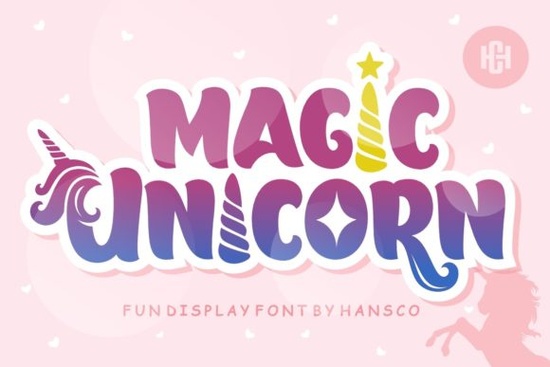
If you're looking for a friendly, hand-drawn display font that feels joyful and approachable especially for kids’ projects, classroom materials, or playful branding the Magic Unicorn Font is a thoughtful choice. It’s not overly stylized or cartoonish, but it carries warmth and character in every letter. You’ll notice subtle bounce in the ascenders, soft curves, and gentle irregularities that make it feel handmade not digital. That authenticity helps it stand out on printed worksheets, birthday banners, or SVG cut files for crafters.
When does Magic Unicorn Font work best?
This font shines where personality matters more than precision. Think: preschool activity sheets, summer camp flyers, sticker designs for teachers, or custom name tags for daycare centers. It’s also popular among print-on-demand sellers creating themed nursery art or baby shower invites especially when paired with soft pastels or glitter textures. Because it’s a display font (not intended for long paragraphs), it’s most effective at sizes 24pt and up. For body text, pair it with a clean sans-serif like Poppins or Nunito to keep things legible and balanced.
Designers often reach for Magic Unicorn when they want something cheerful but not cutesy something that feels inclusive and light without leaning into tired “kiddie” tropes. It avoids exaggerated swirls or heavy outlines, which makes it easier to layer, cut, or embroider. If you’ve ever struggled to find a kid-friendly font that still feels intentional and well-crafted, this one bridges that gap quietly.
How does it compare to other playful display fonts?
Magic Unicorn sits comfortably between bolder options like Retro Rush (which leans vintage and energetic) and softer choices like Juicy Lemon (more rounded and bubbly). It’s less formal than Fishtail Monogram, which works beautifully for elegant initials but doesn’t suit playful contexts as naturally.
Unlike many trend-driven fonts, Magic Unicorn holds up across mediums: it cuts cleanly on Cricut and Silhouette machines, renders crisply in PDFs, and scales well for both digital and physical use. Crafters report fewer alignment hiccups when layering it with shadow effects or watercolor overlays likely because its spacing is generous and its baseline is stable.
Who uses Magic Unicorn Font and why?
- Teachers and homeschoolers use it for spelling lists, reward certificates, and interactive flashcards it keeps young readers engaged without visual fatigue.
- Crafters and SVG designers appreciate its clean vector paths and consistent stroke weight, especially when resizing for iron-on transfers or sublimation mugs.
- Small business owners running children’s boutiques or toy shops apply it to packaging labels, shelf talkers, and social media stories helping their brand feel warm and human, not corporate.
- Print-on-demand creators find it converts well on Etsy and Redbubble for niche themes like “unicorn lovers”, “rainbow learning”, or “gentle parenting” collections.
If you’re curious about similar styles, the Magic Unicorn font is part of a broader family of thoughtfully designed display fonts on Creative Fabrica many made by independent type designers who test their work with real educators, parents, and makers before release.
A quick checklist before downloading
- ✅ You need a display font not a full text family for headings, logos, or short phrases.
- ✅ Your project has a lighthearted, inclusive, or educational tone (not formal, technical, or luxury-focused).
- ✅ You’ll use it across digital and physical outputs so cross-platform compatibility matters.
- ✅ You prefer fonts with built-in alternates and clear documentation over trial-and-error tweaking.
If those match your needs, Magic Unicorn Font is worth adding to your toolkit. Try pairing it with hand-drawn icons or soft gradients it tends to hold its own without competing for attention. And if you’re building a seasonal collection (like back-to-school or spring crafts), consider grabbing one of the companion fonts above they share enough visual harmony to mix well without matching exactly.